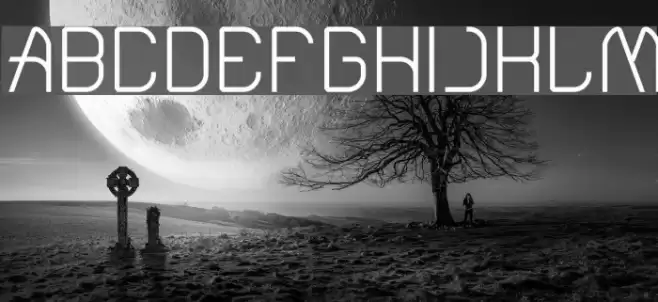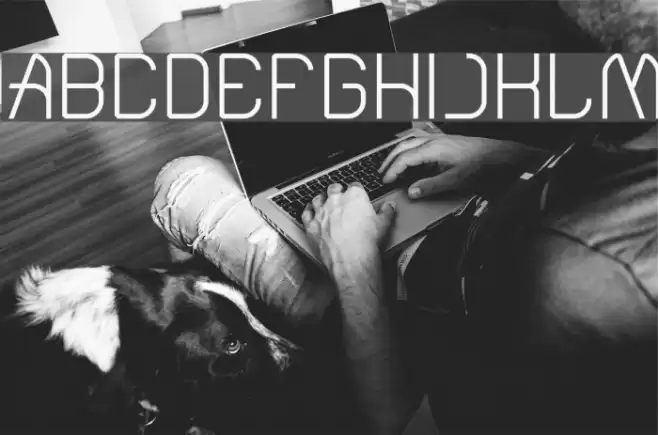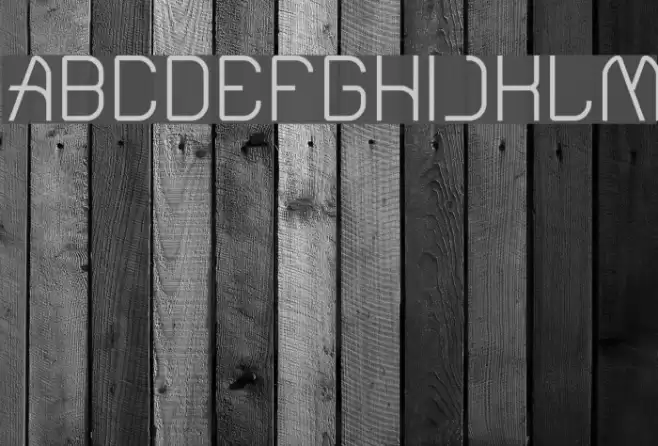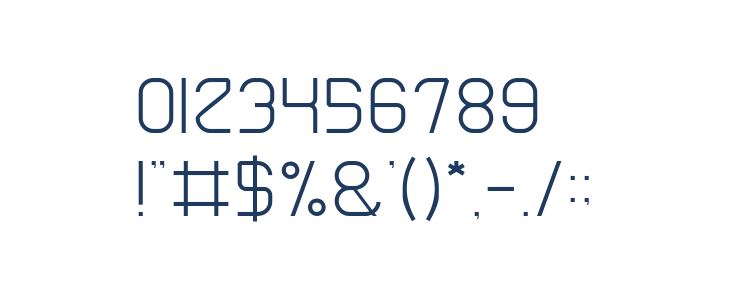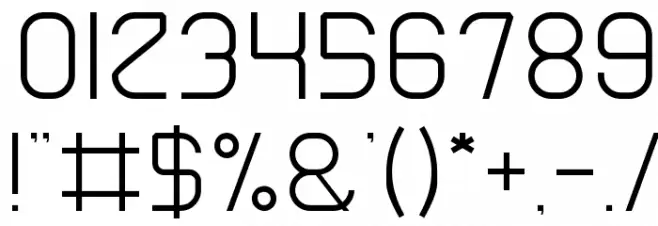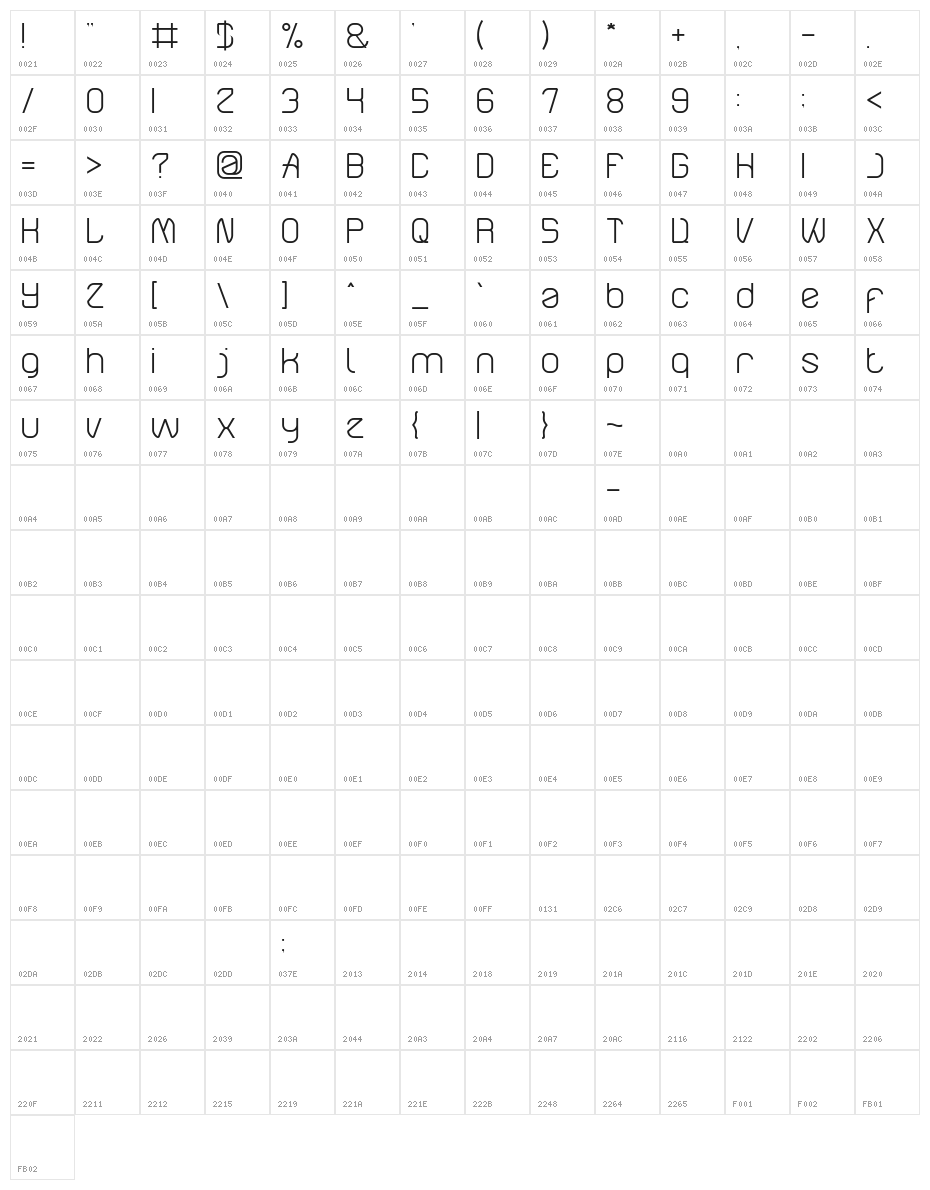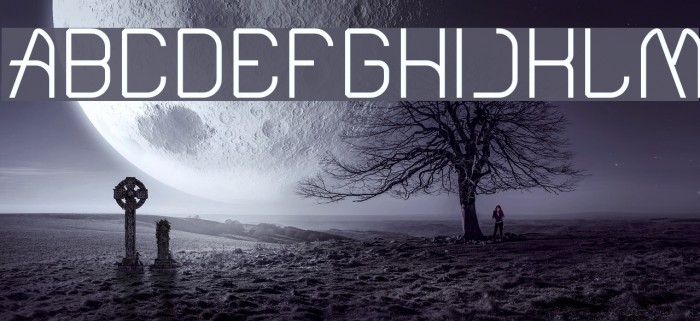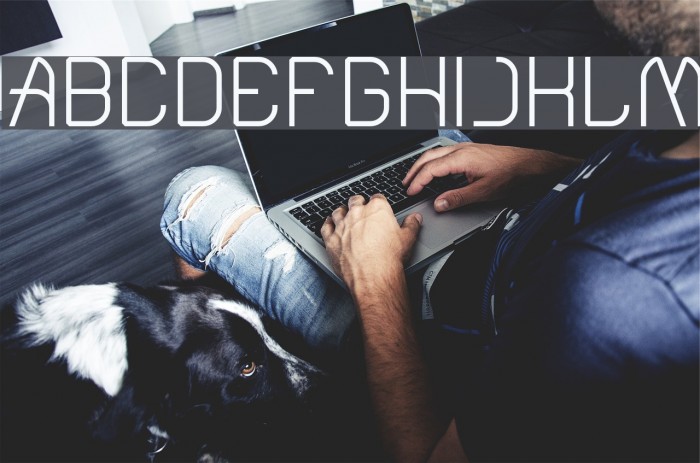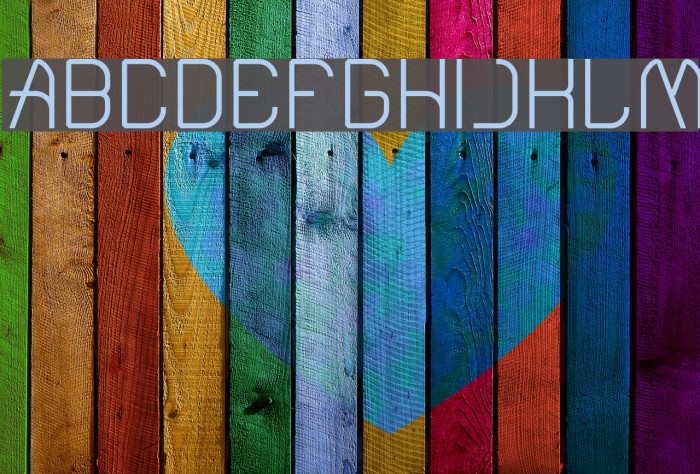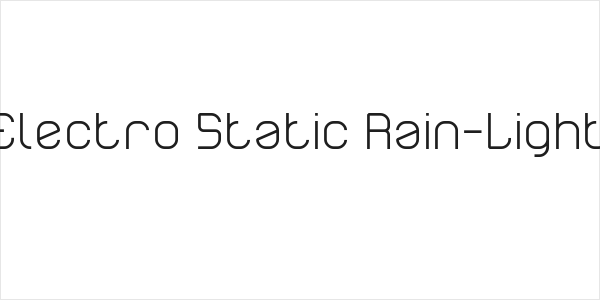
Electro Static Rain-Light Font
Electro Static Rain-Light Description
This font features a modern and sleek design with a geometric and slightly futuristic aesthetic. The characters are crafted with clean lines and rounded edges, giving it a soft yet technical appearance. The uppercase letters maintain a uniform height, while the lowercase letters are slightly more compact, enhancing readability. The numerals are consistent with the overall style, providing a cohesive look across all characters. Special characters are designed with the same attention to detail, ensuring they blend seamlessly with the rest of the font. This typeface is versatile, suitable for both digital and print media, and can be used to convey a sense of innovation and modernity.
A modern, geometric font with clean lines and rounded edges, ideal for tech and innovative designs from Uncategorized fonts.
- Proposed Projects: Ideal for technology branding, app interfaces, modern advertising, and innovative product packaging.
- Use Case: Headlines, Logos, Digital interfaces